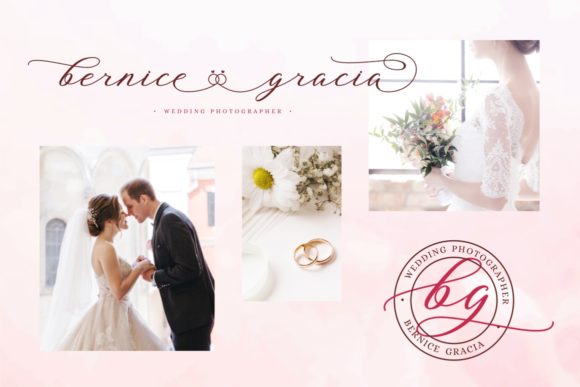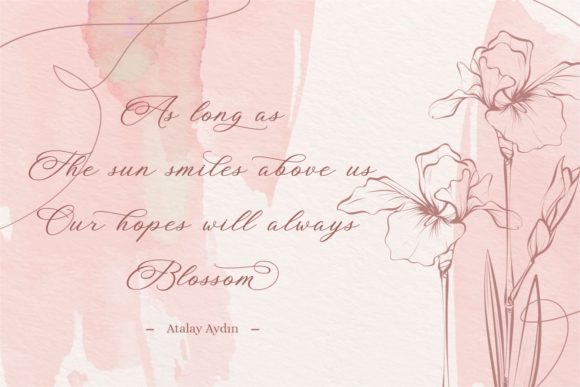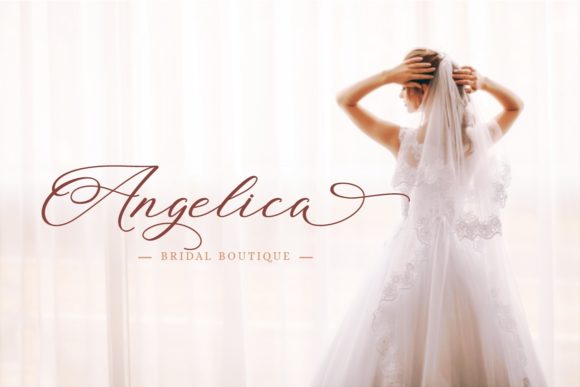
Blossom Heart Font
Blossom Heart is a romantic and charming script font, featuring tiny little hearts as ornaments. This font is PUA encoded which means you can access all of the glyphs and swashes with ease! Not too thin and not too thick, balanced and varied, Blossom Heart was designed to enhance the beauty of your projects.